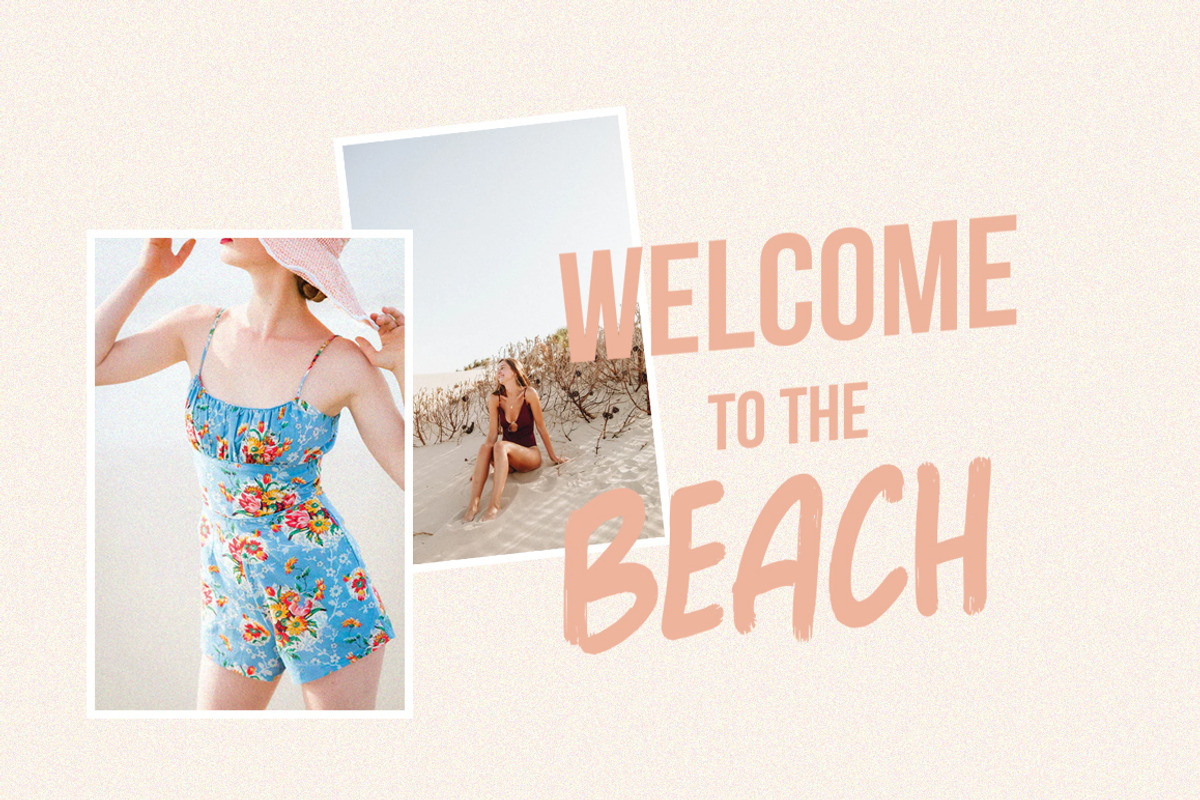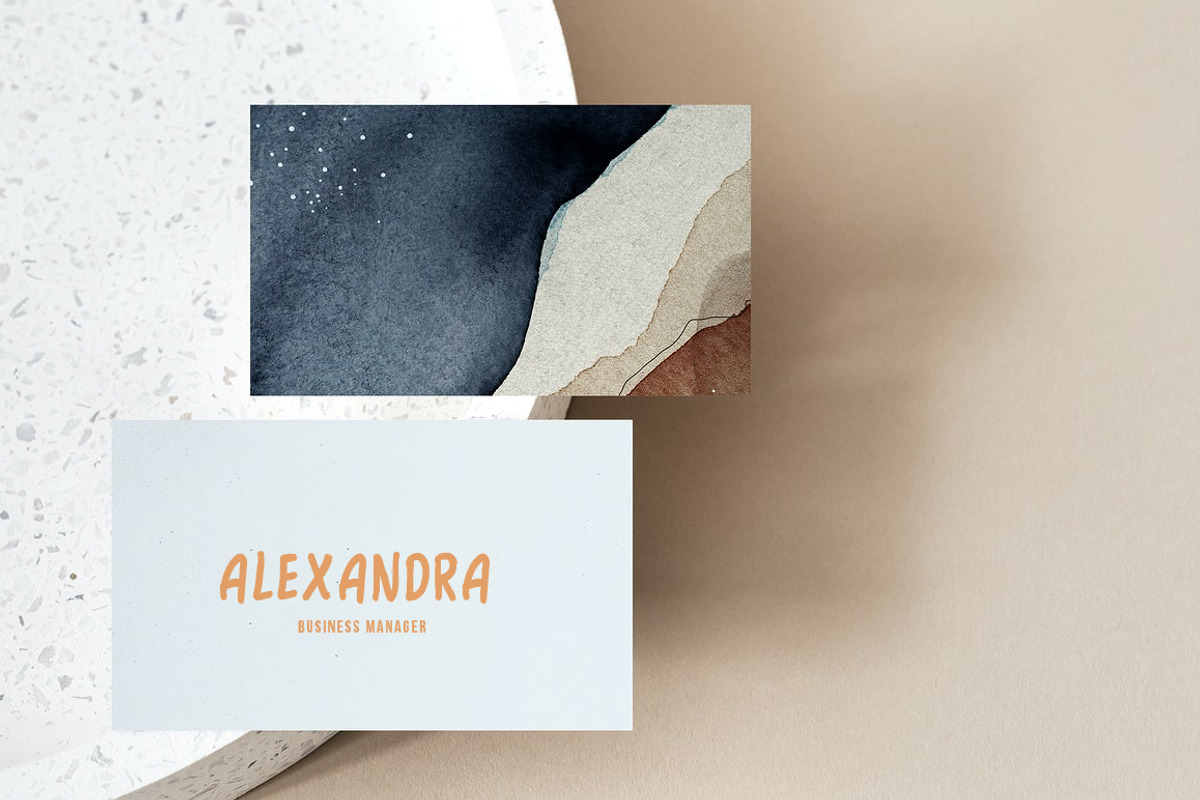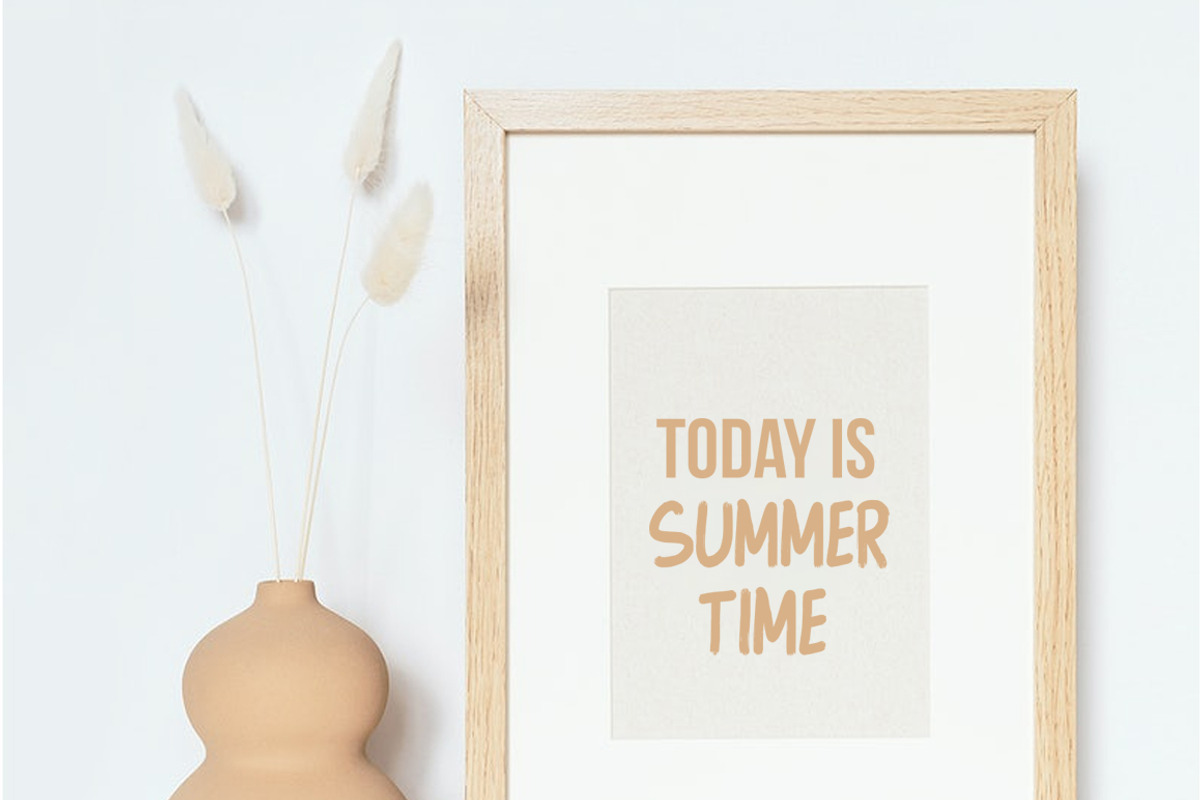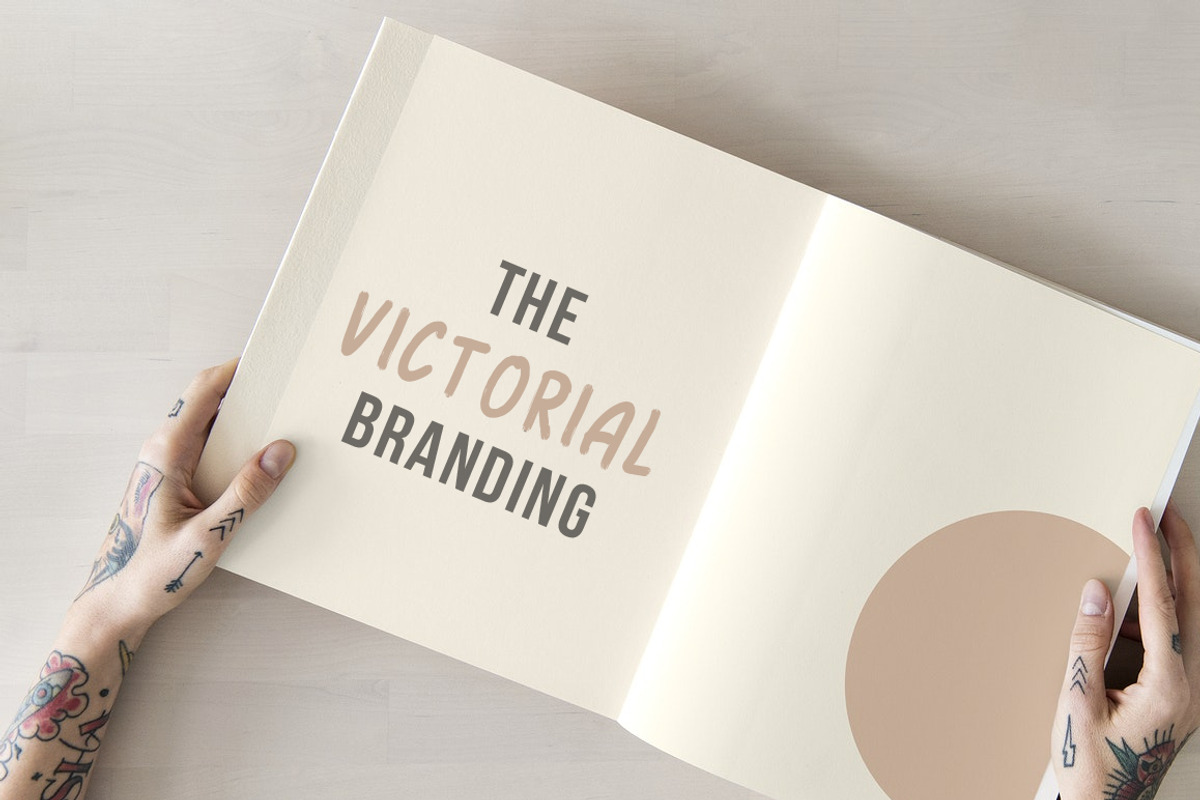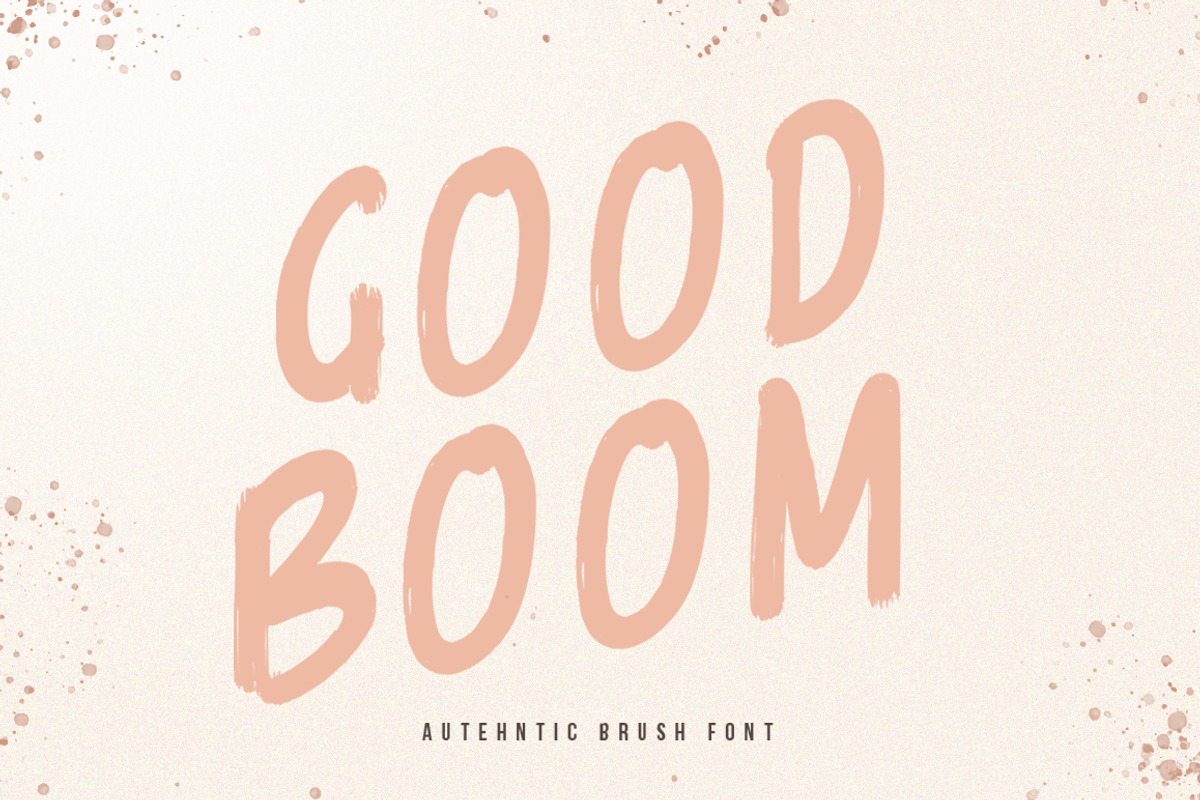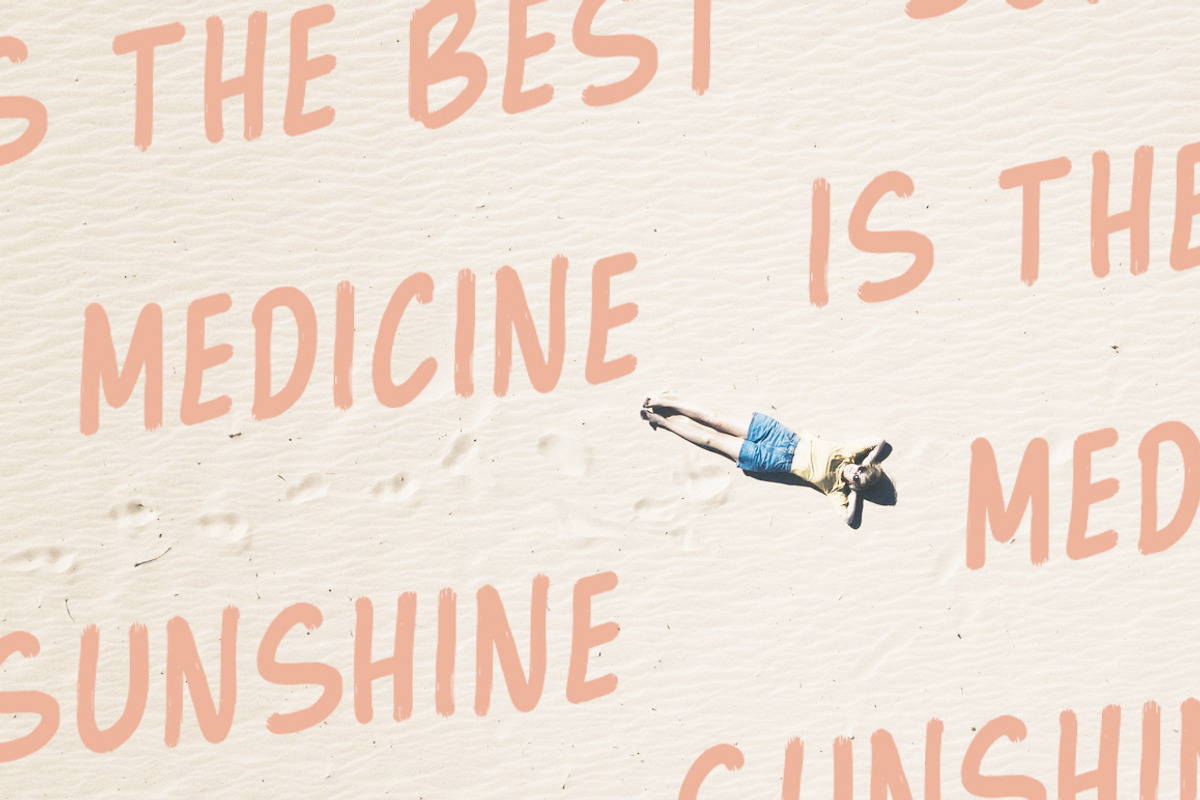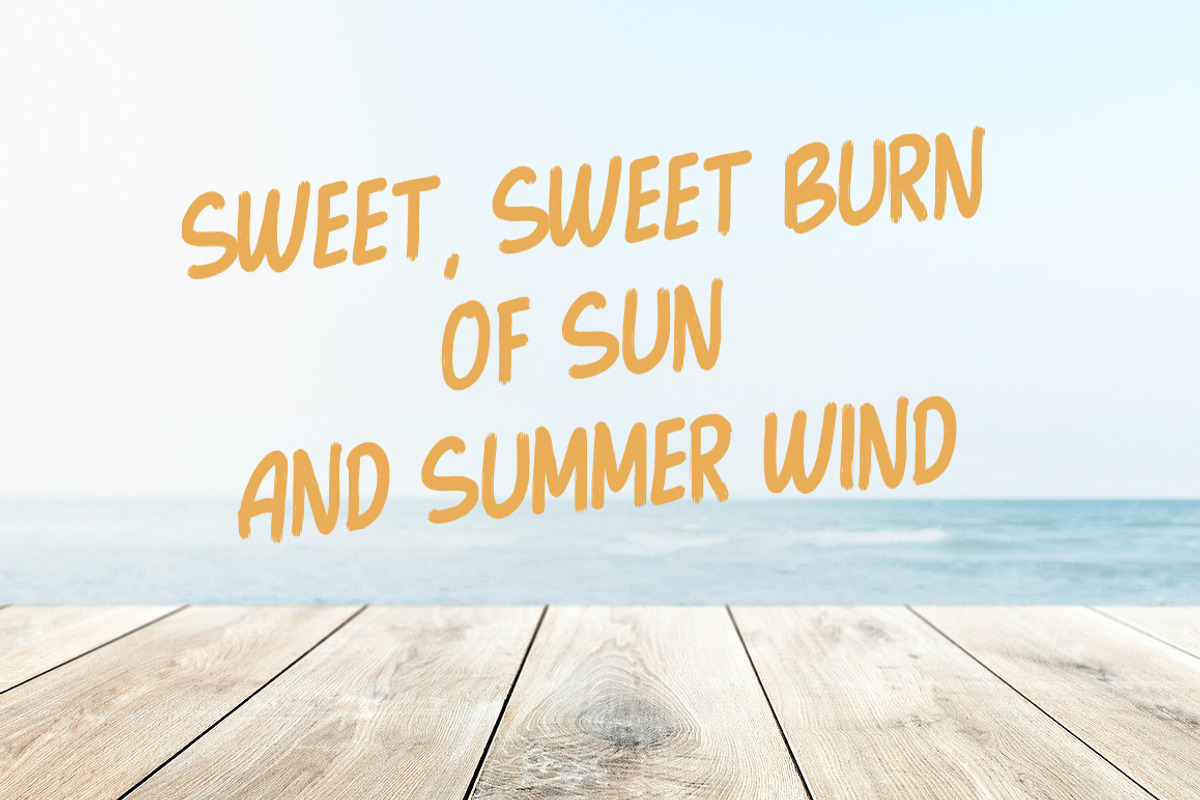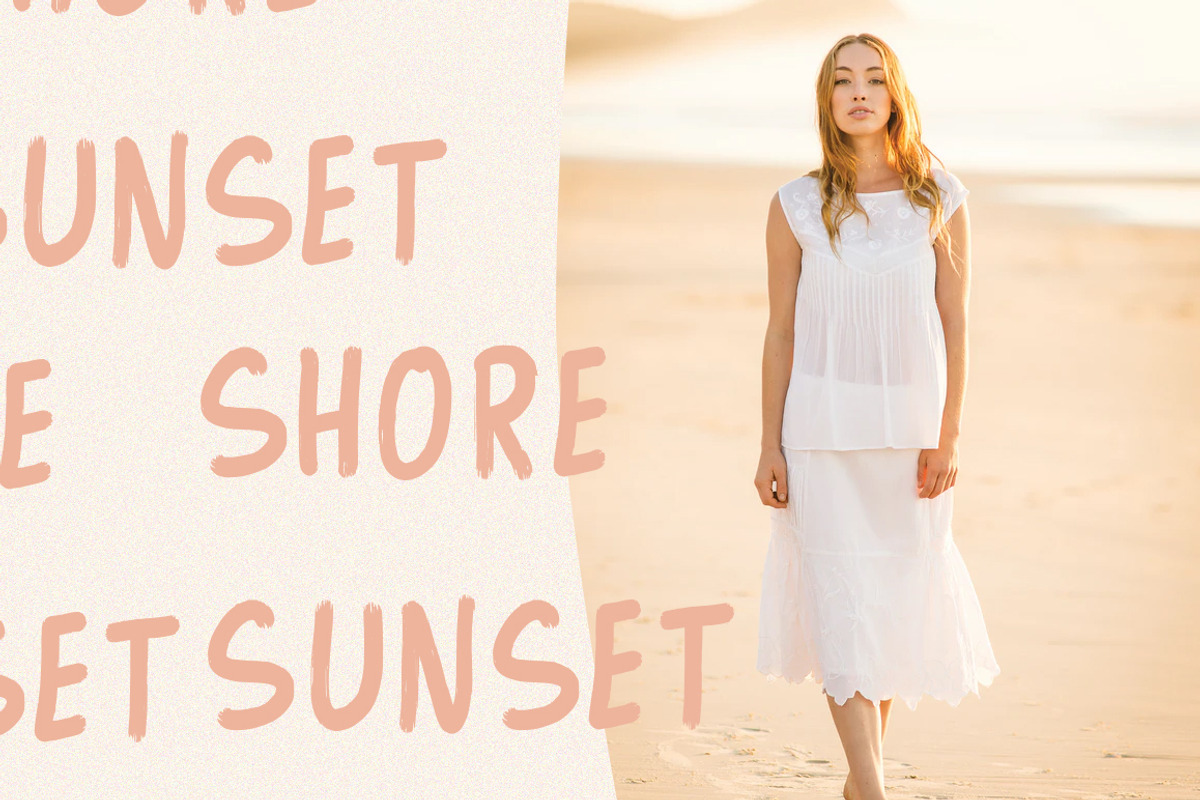
Goodboom Brush Font
Aloha! Goodboom is a authentic brush font, perfect for creating beautiful logos, signage, social media, blog posts, styled quotes, packaging, and more! Goodboom is free-spirited and carefree + handcrafted with lots of love for your beautiful projects ♡
It also includes a clean version without texture. OpenType features (ligatures and alternates) helps to make your lettering more interesting. Also there is swashes alternate